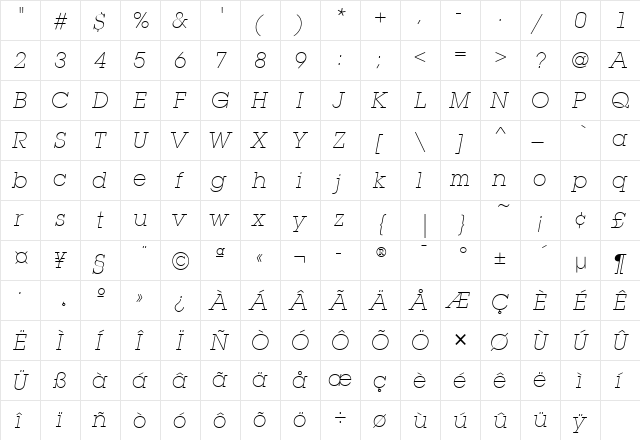
LubalinGraphXLitITC Oblique Font Preview
LubalinGraphXLitITC Oblique
LubalinGraphXLitITC Oblique Font Details
Design Context for LubalinGraphXLitITC Typeface
LubalinGraphXLitITC takes a measured approach to typography — its balanced proportions and neutral character make it a reliable workhorse for both digital and print work. Its italic angle brings a sense of urgency and motion to the letterforms.
Pro Tip: Try LubalinGraphXLitITC for annotation and caption copy alongside an upright companion — the contrast in angle creates a dynamic but ordered typographic system.